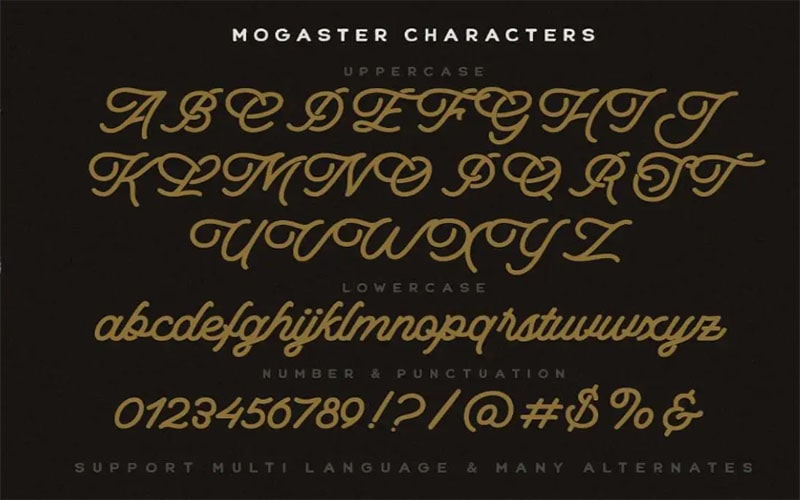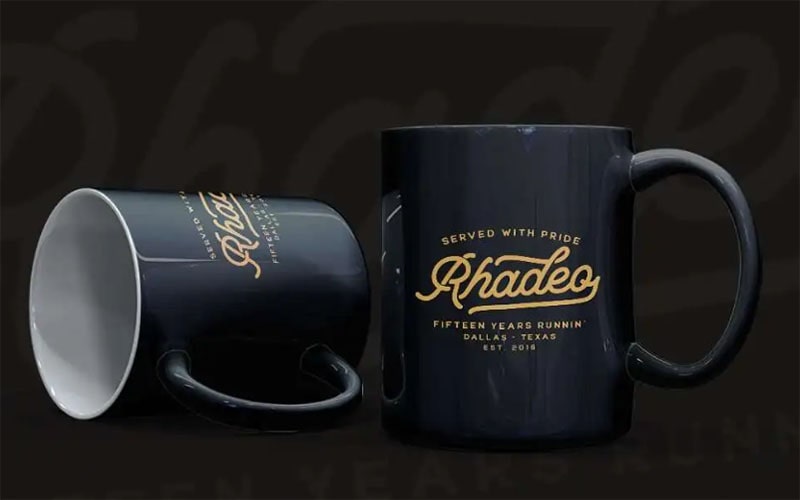
The Mogaster Font is a beautiful and elegant typeface that captures the essence of sophistication and style. A talented designer studio, Letterhend Studio designed it for the first time.
He is a prominent figure in the world of typography and is known for his ability to blend classic and modern elements seamlessly.
Letterhend ‘s work often reflects a deep appreciation for the intricacies of calligraphy and the fluidity of hand-drawn scripts, which is evident in the Mogaster Font.
It is a script font that exudes a sense of elegance and grace. It is characterized by its flowing, cursive letterforms and intricate details, making it perfect for a variety of design applications.
Mogaster Font
It contains two styles such as regular and bold. The primary style features smooth and continuous strokes that emulate the natural flow of handwriting.
A bolder version that maintains the elegant curves but with a stronger presence. Perfect for adding a touch of sophistication to any wedding stationery.